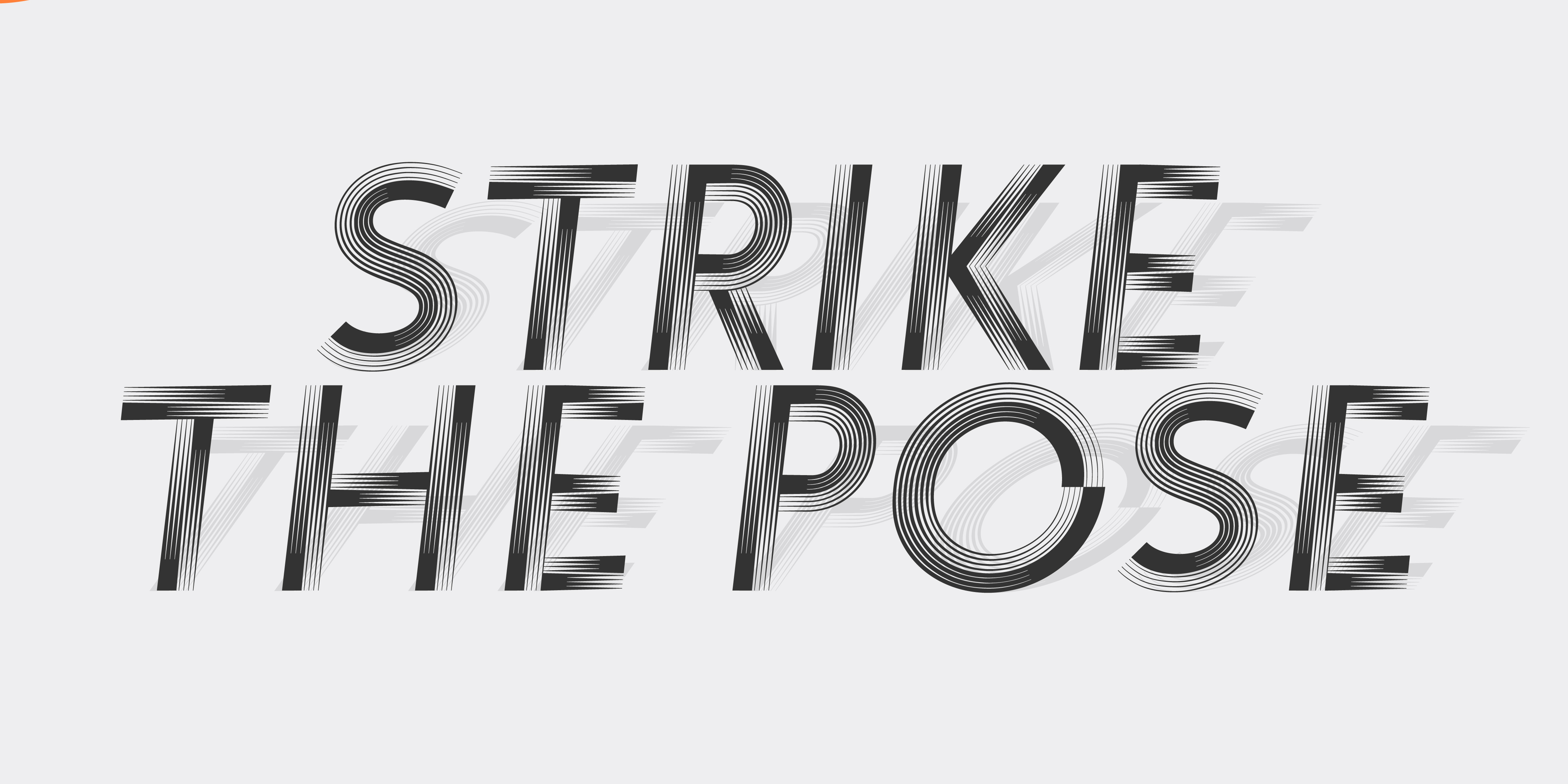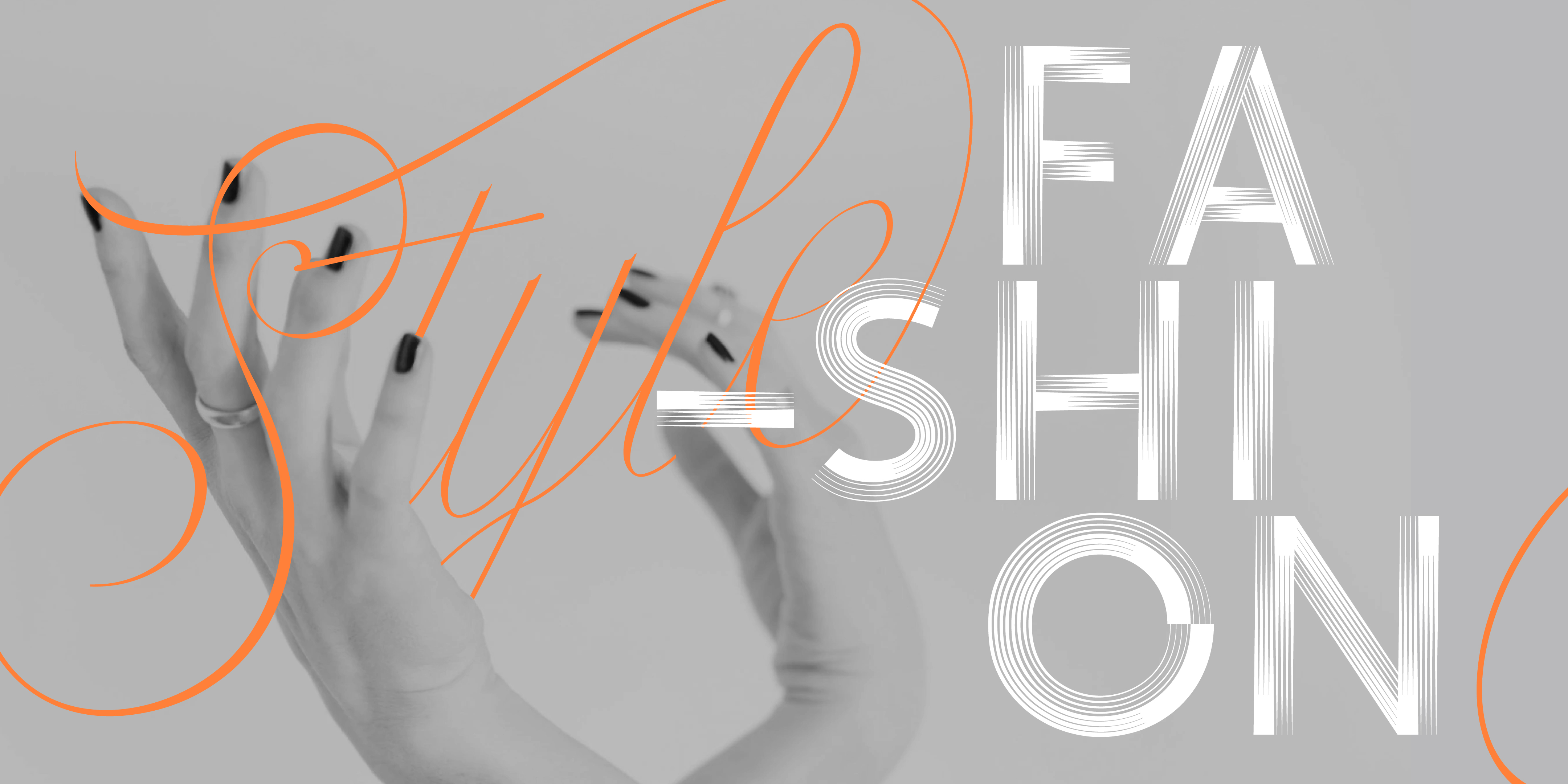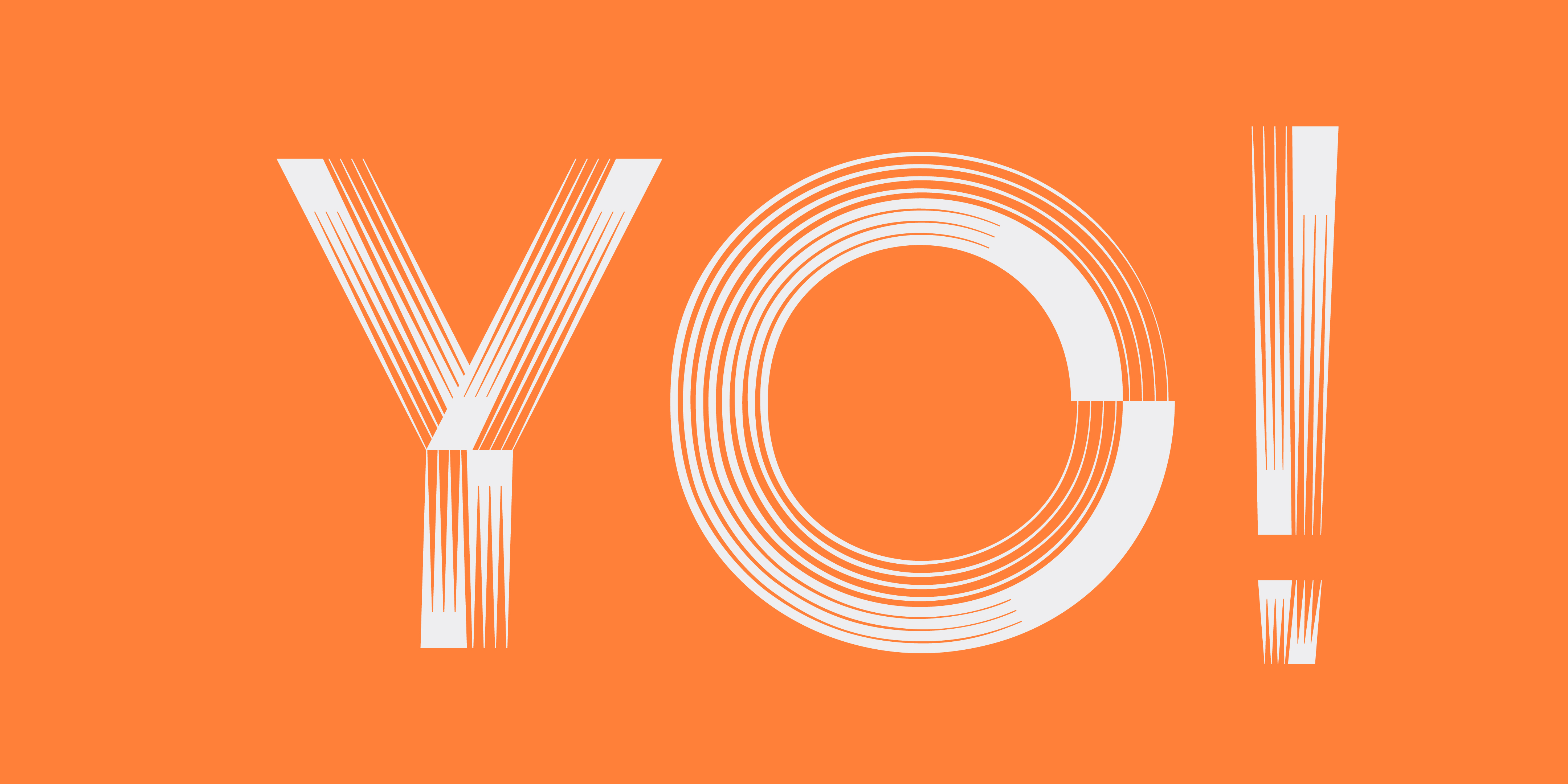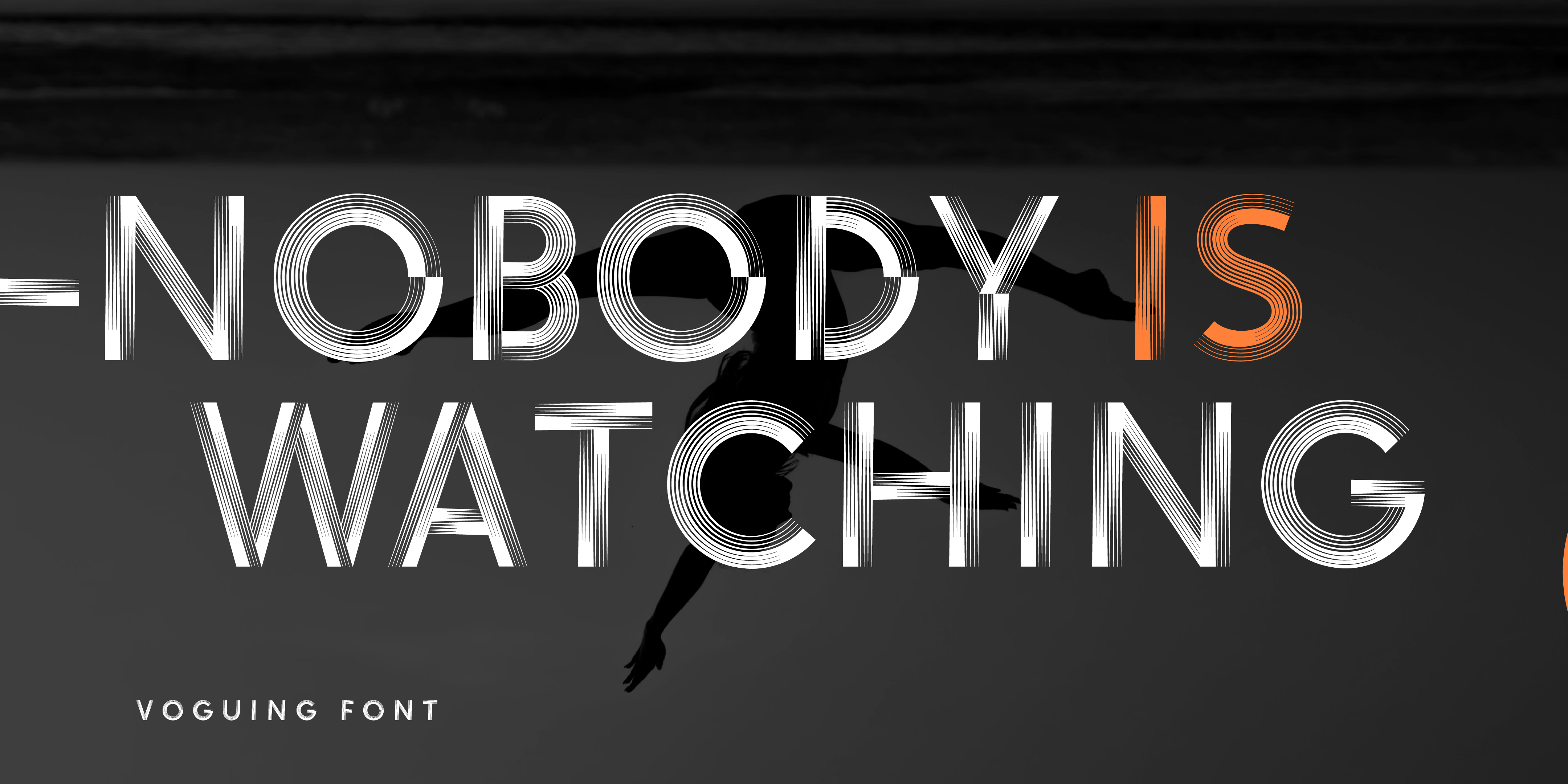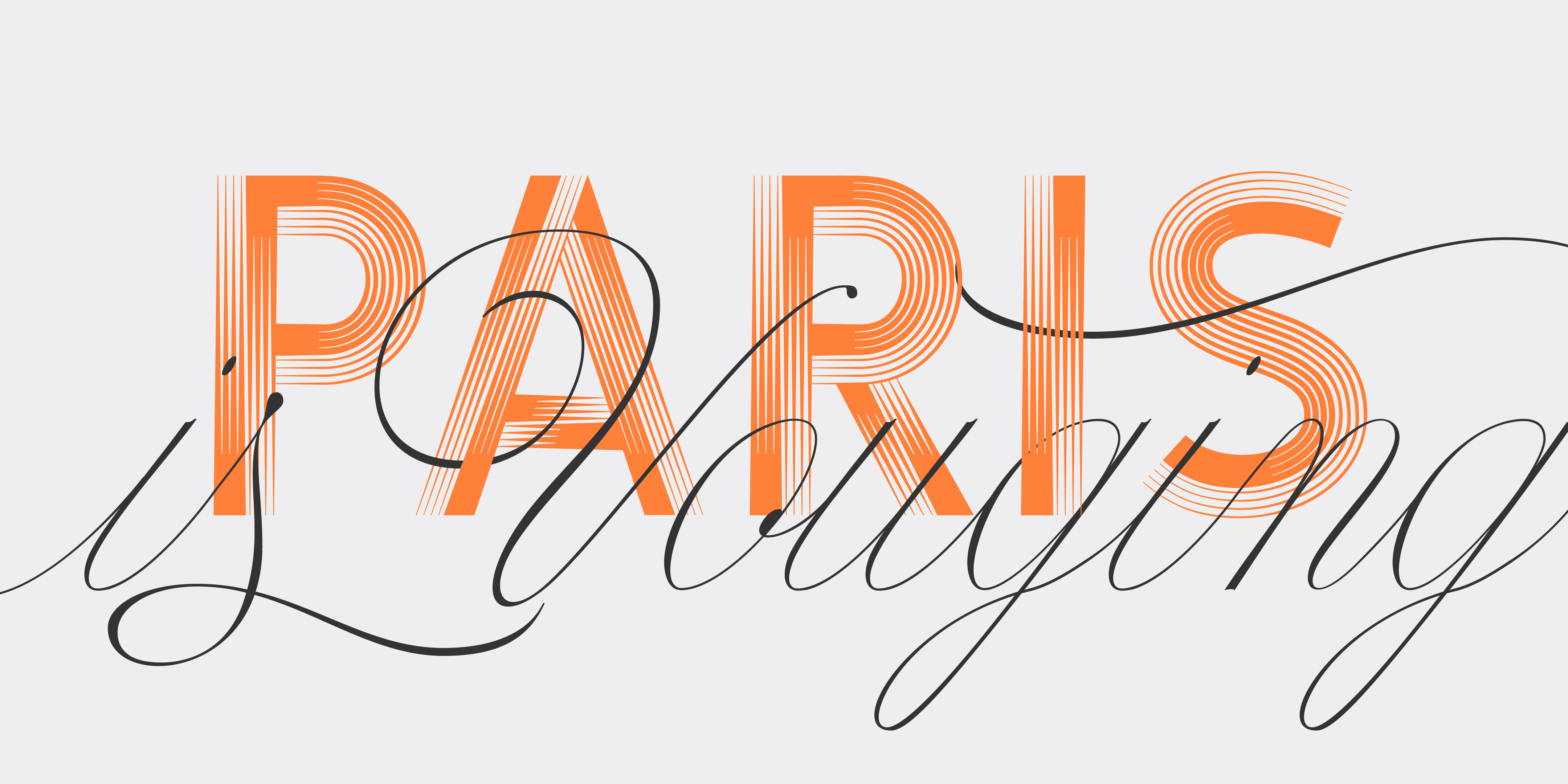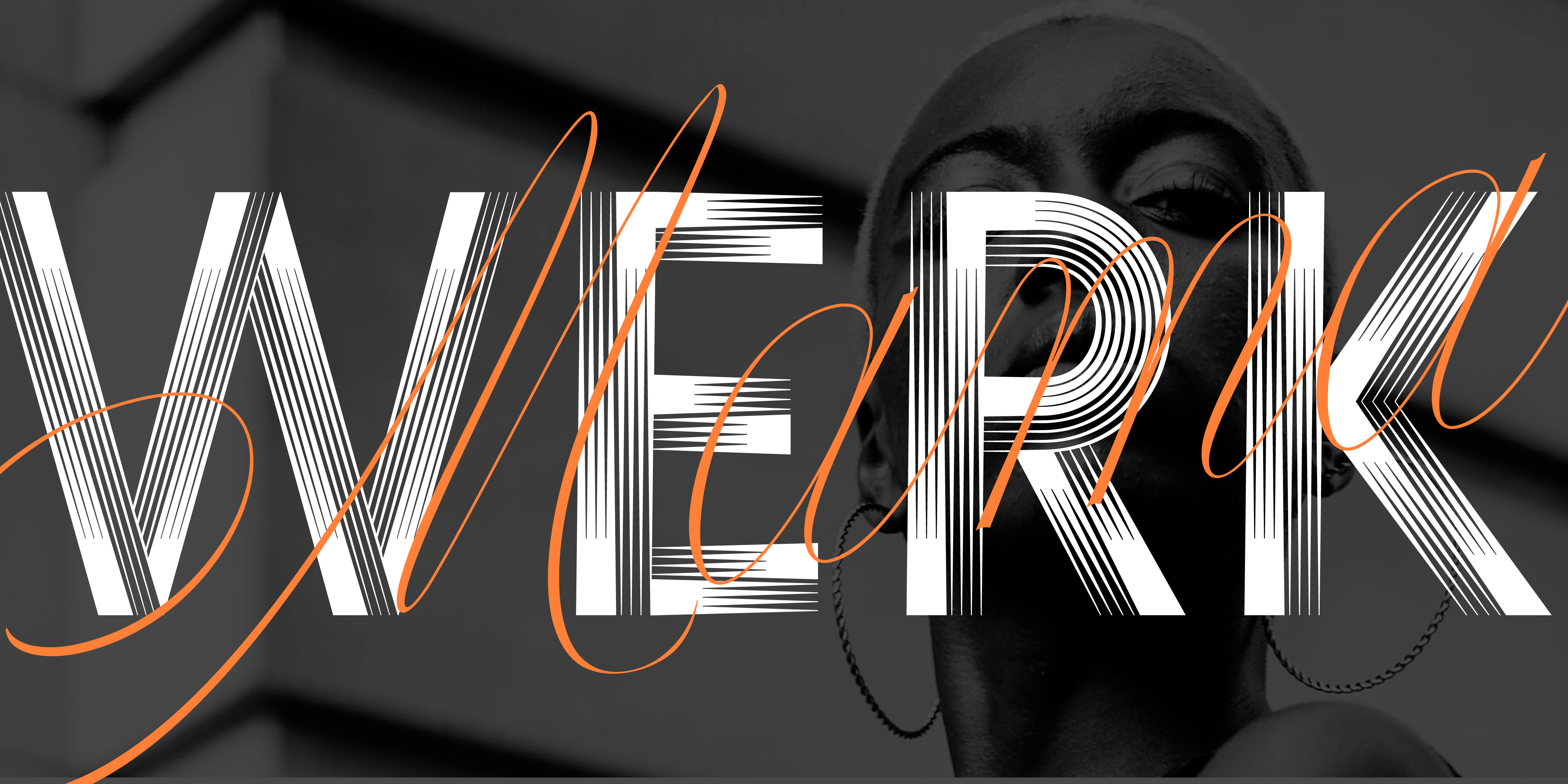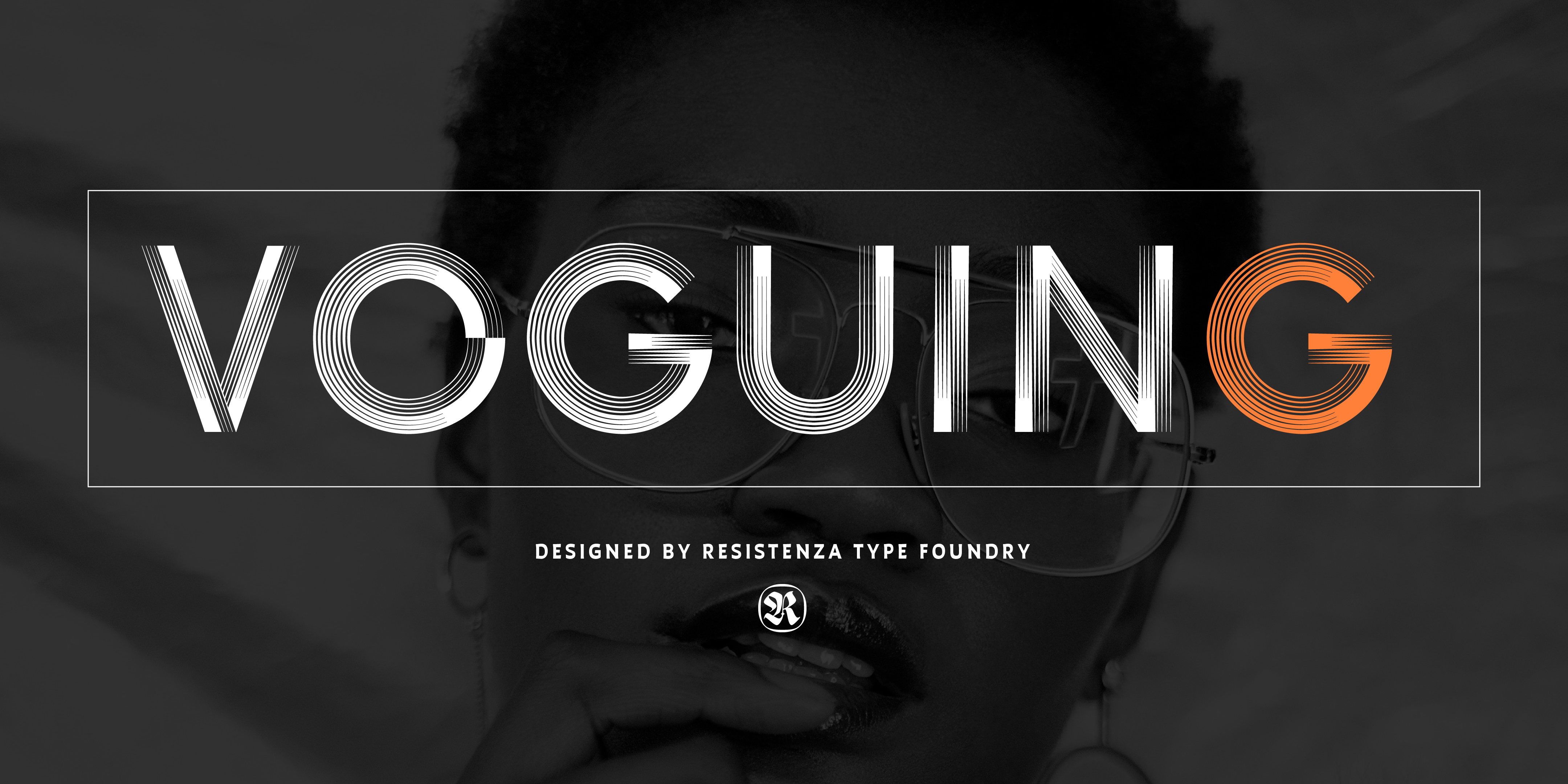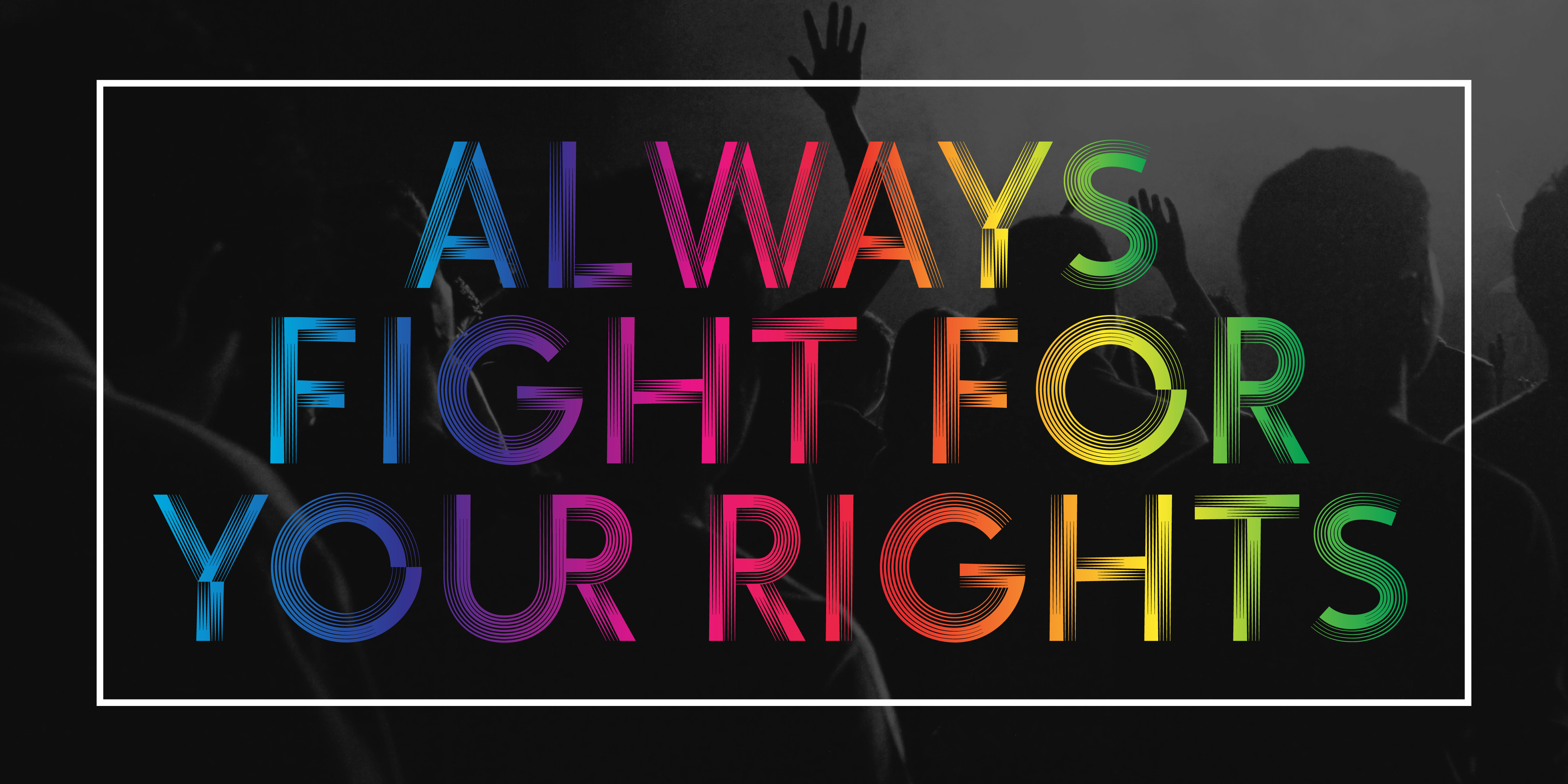
Voguing
Regular Slanted Backslanted
A multilingual grotesk font
Voguing
Designed by Resistenza Type Foundry
Sashay, you stay! Voguing is inspired by the movement and glamour of the ’80s/90s and New York ballrooms scene. Based on multiline strokes like our first font release Afrobeat but this time playing with the movement and direction of strokes we got a 3D effect to embrace the feeling of Voguing Art Expression. We highly recommend to combine Voguing with Nautica Sottile Modern letterforms reminding the skeleton of geometric type and serving optical contemporary elegance to this typeface presented in 3 different styles: regular, slanted and backslanted. The font includes also a set of ligatures accessible through OpenType perfect to customize your text. Bring a “10 across the board” to your layout with this new font family. Voguing is perfect for fashion, publishing, cosmetics, sports and art industries. Its eye catching effect works great for headlines, branding, magazine, social media posts, website headers, posters, ads, stationery designs and products. Check out also Dreamteam & Afrobeat